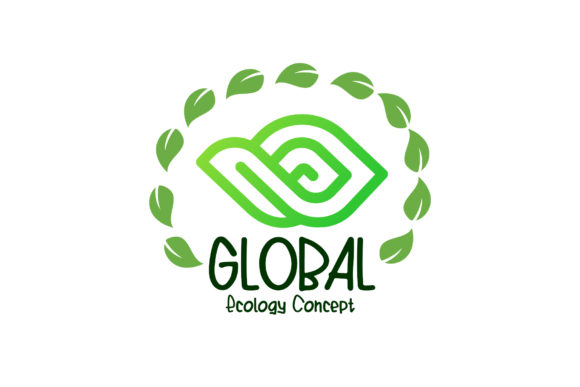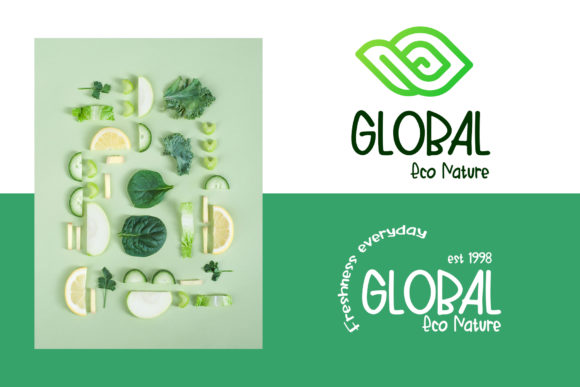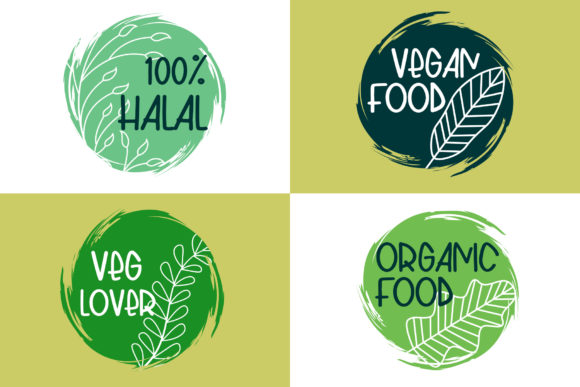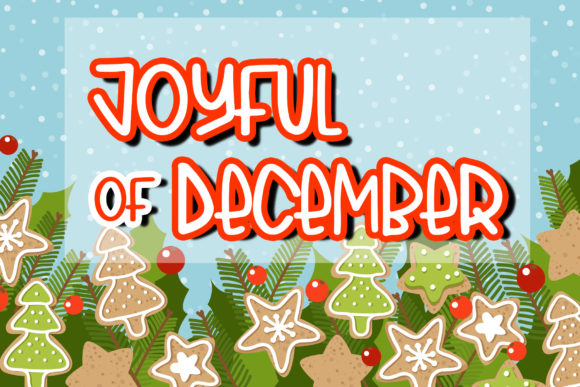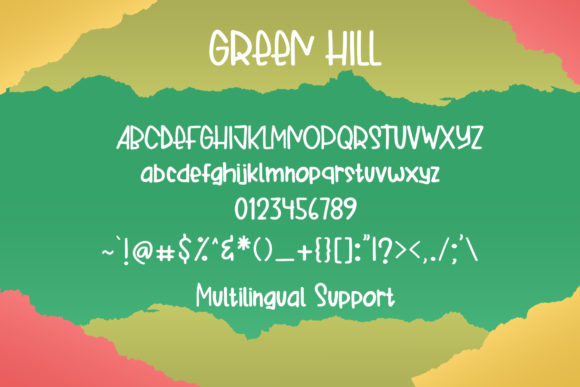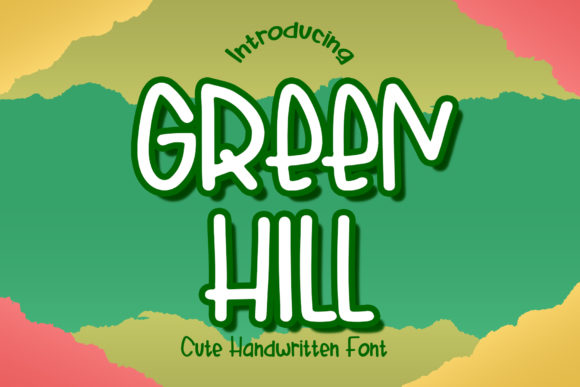
Discover the Charm of Green Hill Font: A Cute and Quirky Handwritten Font
Are you tired of using the same old fonts in your design projects? Look no further than Green Hill Font, a delightful and quirky handwritten font that’s sure to add a touch of personality to your creations. With its casual and natural vibe, Green Hill Font is perfect for a variety of design projects, from crafting and DIY tutorials to branding and marketing materials.
What Makes Green Hill Font So Special?
Green Hill Font is a unique and charming font that’s designed to bring a sense of whimsy and playfulness to your designs. Its handwritten style gives it a personal and approachable feel, making it perfect for designers and crafters who want to add a touch of warmth and personality to their work. Whether you’re creating a tutorial, a blog post, or a marketing campaign, Green Hill Font is sure to make your content stand out.
Key Features of Green Hill Font
• Cute and Quirky: Green Hill Font has a playful and charming personality that’s sure to delight your audience.
• Handwritten Style: The font’s handwritten style gives it a personal and approachable feel that’s perfect for designers and crafters.
• Casual and Natural: Green Hill Font has a relaxed and natural vibe that’s perfect for a variety of design projects.
• Versatile: The font is suitable for a wide range of design projects, from crafting and DIY tutorials to branding and marketing materials.
How to Use Green Hill Font in Your Design Projects
Green Hill Font is incredibly easy to use and can be incorporated into a variety of design projects. Here are a few ideas to get you started:
• Crafting and DIY Tutorials: Use Green Hill Font to add a personal touch to your crafting and DIY tutorials.
• Branding and Marketing Materials: Add a touch of personality to your branding and marketing materials, such as business cards, brochures, and social media graphics.
• Blog Posts and Articles: Use Green Hill Font to add a touch of whimsy and playfulness to your blog posts and articles.
• Signs and Posters: Green Hill Font is perfect for creating eye-catching signs and posters for events, sales, and promotions.
Tips for Getting the Most Out of Green Hill Font
Here are a few tips for getting the most out of Green Hill Font:
• Experiment with Different Sizes: Green Hill Font looks great in a variety of sizes, so don’t be afraid to experiment and find the perfect size for your design project.
• Pair it with Other Fonts: Green Hill Font pairs well with a variety of other fonts, so try pairing it with a bold font for headings and a clean font for body text.
• Use it in Combination with Images: Green Hill Font looks great in combination with images, so try using it to add a touch of personality to your graphics and photos.
Green Hill Font is a charming and quirky handwritten font that’s perfect for designers and crafters who want to add a touch of personality to their design projects. With its casual and natural vibe, Green Hill Font is suitable for a wide range of design projects, from crafting and DIY tutorials to branding and marketing materials. So why not give Green Hill Font a try and see the difference it can make in your designs?
• Is Green Hill Font easy to read? Yes, Green Hill Font is designed to be easy to read, even at small sizes.